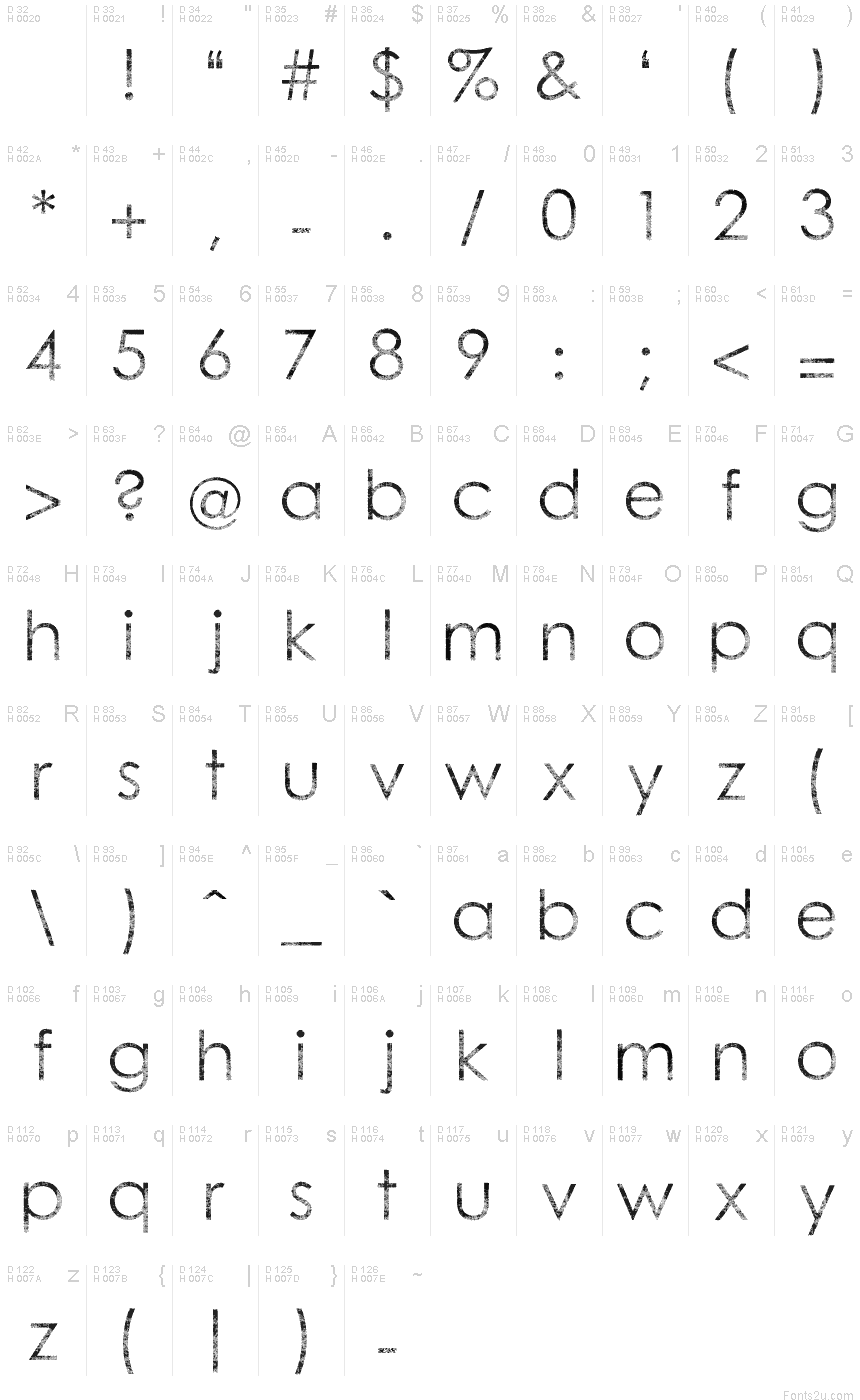
Tramlib is a free eroded display font with slim, rounded letters, open circular forms, and a clean geometric frame. Its worn surface appears throughout as a fine field of scratches and speckles rather than large missing chunks. The texture is unusually fine and delicate.
A music poster is its strongest setting, since the soft shapes keep the distressed treatment from looking harsh. The same combination suits indie record packaging, fashion labels, and contemporary event graphics with an understated, photocopied edge. In branding, Tramlib can turn a simple wordmark into part of the product's printed texture, especially for independent fashion and music.